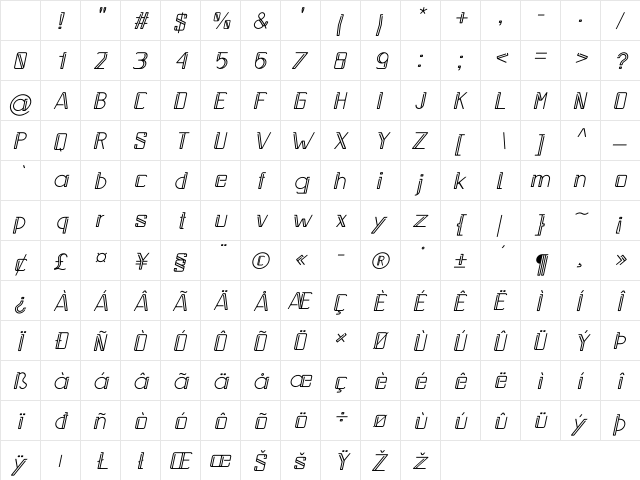
Walterson Italic is a composed and adaptable typeface that performs quietly and consistently across a wide range of design contexts. The slanted form adds forward momentum and visual energy.
Pro Tip: Use Walterson Italic for emphasis, pull quotes, and subheadings where its slanted energy can add rhythm to the layout.